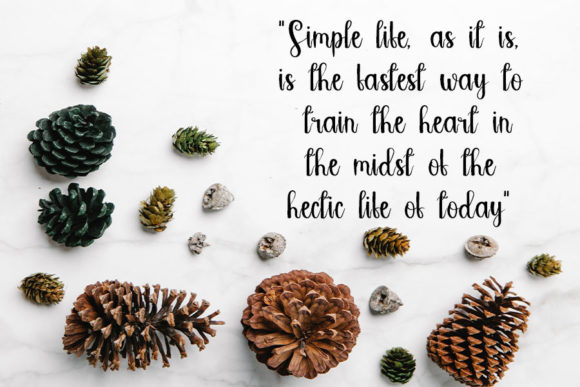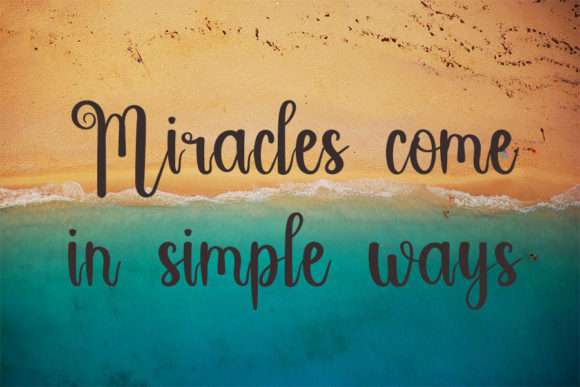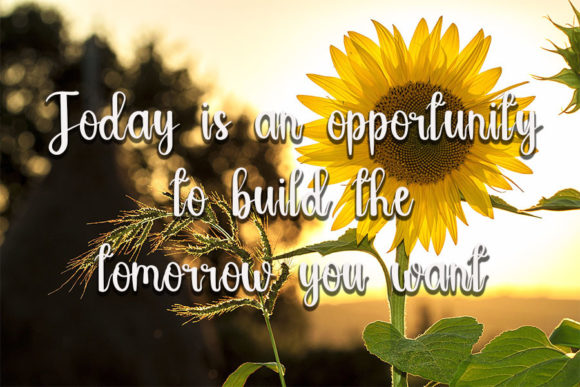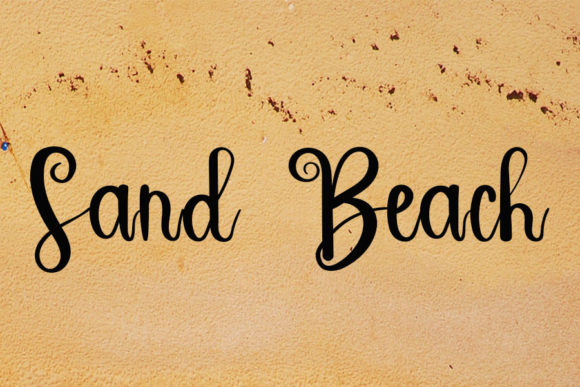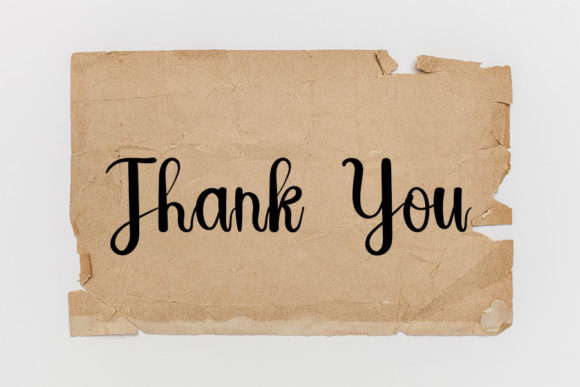
Hello Beach Font
“Hello Beach” is a slim and delicate handwritten font, radiating a dainty and joyful charm. Perfect for various design applications, this font is particularly well-suited for writing wedding invitations, cards, or any project that calls for a romantic and personalized touch.
The slim and delicate strokes of “Hello Beach” bring an elegant and refined quality to your designs, making it an excellent choice for occasions that demand a touch of romance. Envision this font gracing wedding invitations with its graceful lettering, creating a beautiful and intimate atmosphere.
The joyful essence of “Hello Beach” makes it versatile for a range of creative projects where a handwritten and personal feel is desired. Whether you’re crafting greeting cards, creating personalized stationery, or working on any design that requires a warm touch, this font imparts a delightful flair.
As you incorporate “Hello Beach” into your designs, appreciate its slim and delicate strokes. The font’s romantic and personalized aesthetic ensures that your projects evoke a sense of intimacy and charm, making it a lovely choice for expressing heartfelt sentiments in a visually appealing way.